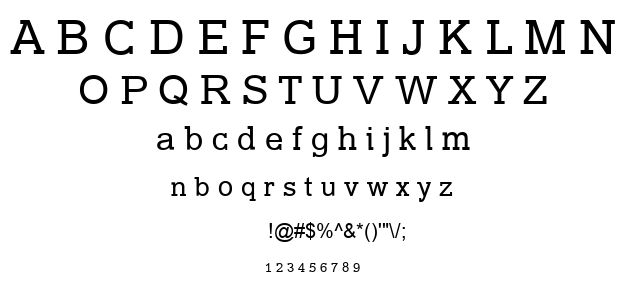
This typeface was designed for a school project. The concept was to redesign an operation system font. I slabbed Arial.
It works in text and in headlines too.